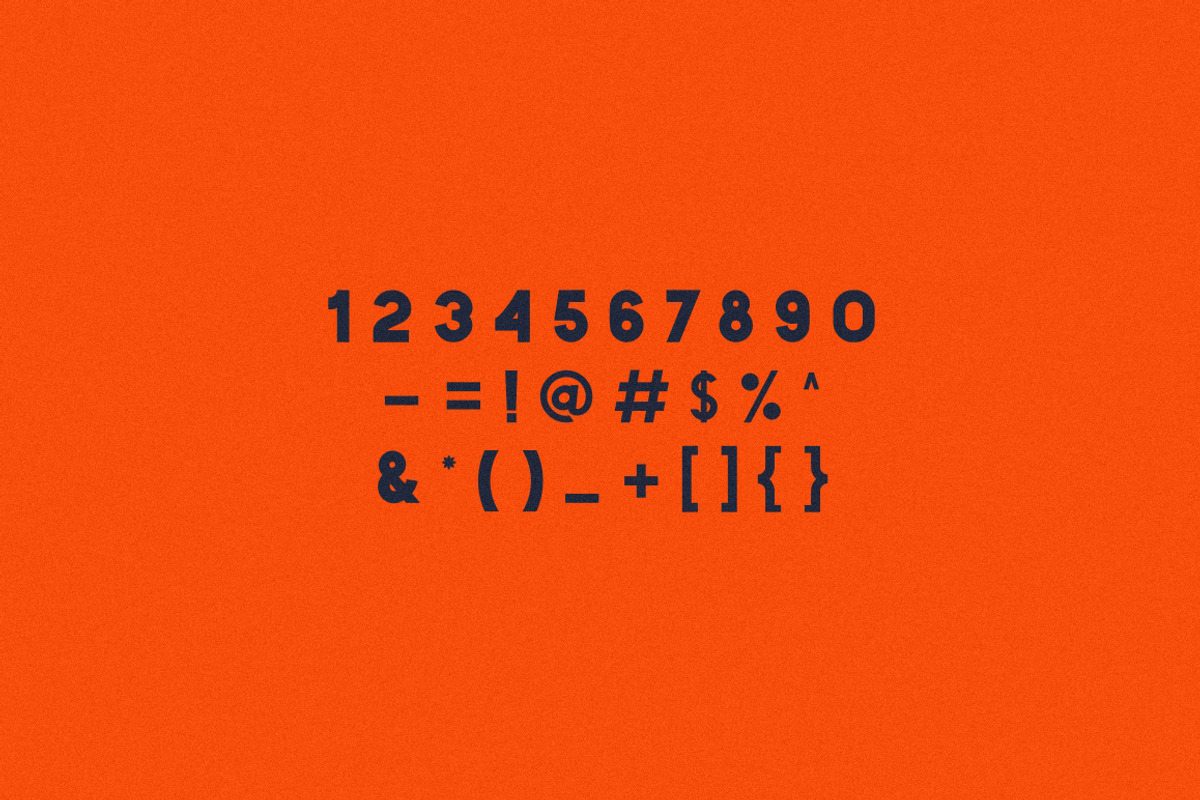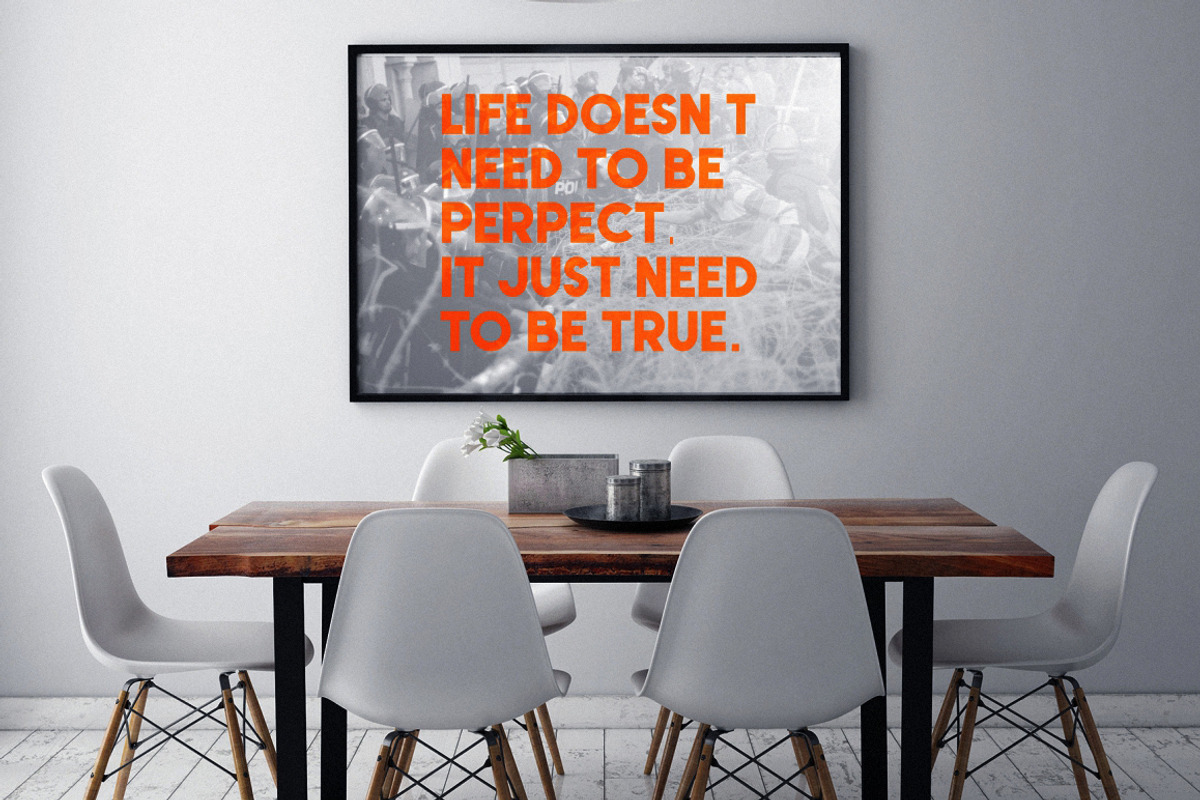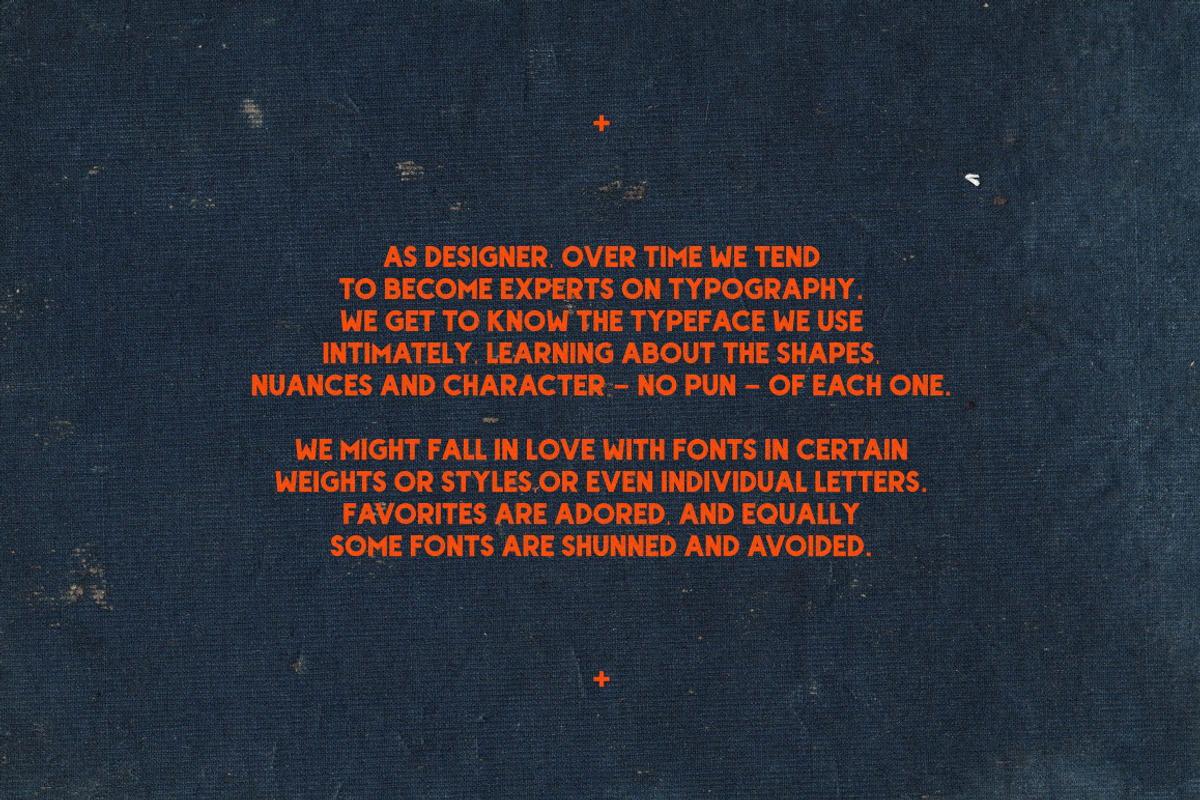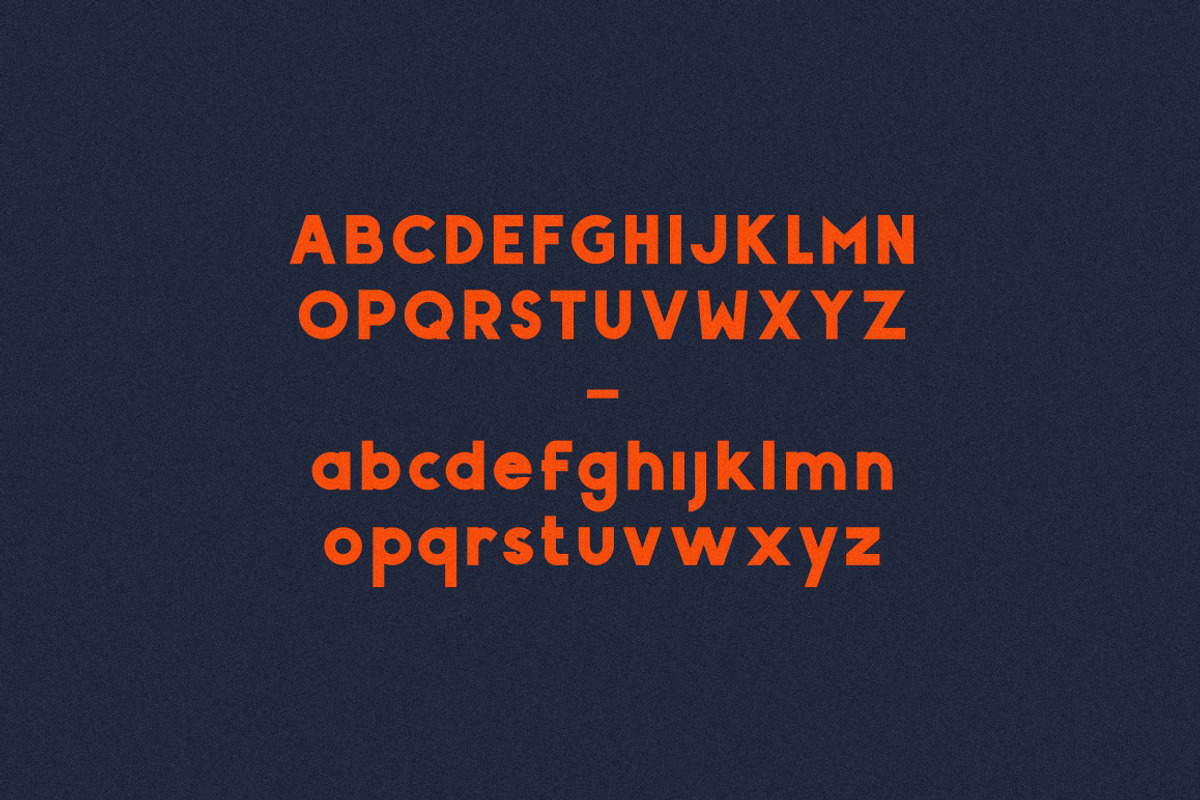
LES JEUX Font
LES JEUX Font by Dega Syukurilah is a font selected for branding, posters, packaging, typography.
- Uppercase, Lowercase, Number, Special Character.
Why LES JEUX Font is worth a look
LES JEUX Font by Dega Syukurilah fits naturally into Branding, posters, packaging, typography.